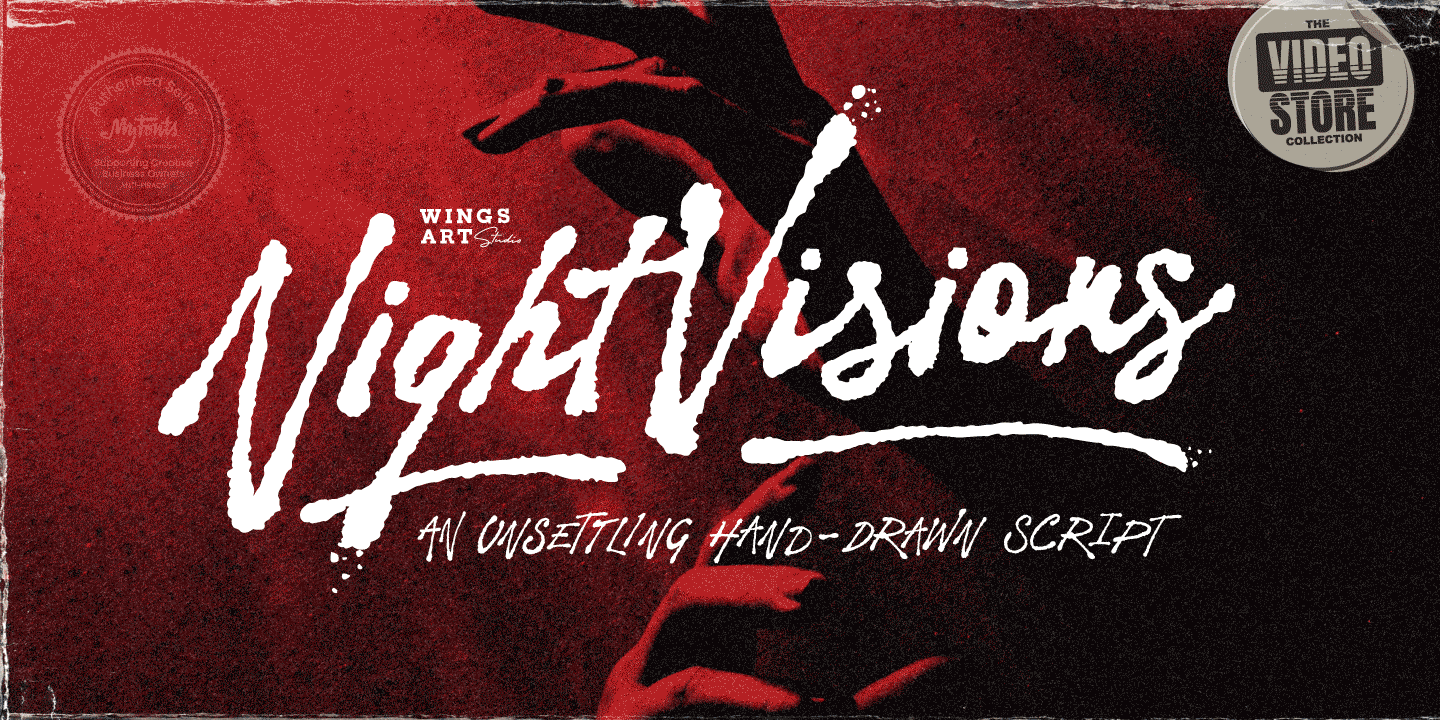
Night Visions Font is perfect for nightclub event promotions, nocturnal music festival materials, dark electronic album covers, midnight cinema posters, urban nightlife branding, dream interpretation publications, astrology consultation materials, and mysterious entertainment venues. This atmospheric typeface brings nocturnal mystique and visionary elegance to any project requiring dark, captivating typography with authentic nighttime appeal and mysterious artistic sophistication.
What makes Night Visions Font exciting is its perfect embodiment of nocturnal mystery and visionary imagination that captures the ethereal beauty of midnight dreams and the profound inspiration found in darkness and starlit contemplation. The font features dramatic letterforms with atmospheric details and visionary proportions that mirror the mysterious depth of night sky and the creative energy of nocturnal artistic expression while maintaining excellent readability for entertainment and mystical applications. Its visionary character and nocturnal sophistication make it ideal for entertainment venues, artistic brands, and mystical organizations seeking to convey dark elegance and visionary creativity. The typeface's mysterious appeal ensures instant recognition of nighttime quality and visionary authenticity.
The Night Visions Font family includes Light, Regular, Bold, Shadow, and Mystic variants, each maintaining the signature nocturnal elegance while offering different expressions of visionary mystery and atmospheric beauty. The family features celestial symbols, mystical elements, and visionary decorations that enhance its versatility for nightlife branding and mystical entertainment projects. These variants provide comprehensive tools for creating authentic nocturnal typography with genuine visionary character and atmospheric appeal.
Whether you're designing for nightlife venues, mystical brands, or visionary entertainment experiences, Night Visions Font Free Download delivers the nocturnal authenticity that defines genuine visionary typography. Its combination of mysterious elegance and atmospheric sophistication makes it perfect for communicating nighttime magic, visionary inspiration, and mystical entertainment with authentic Night Visions Font Free Download mystery and unforgettable nocturnal presence.